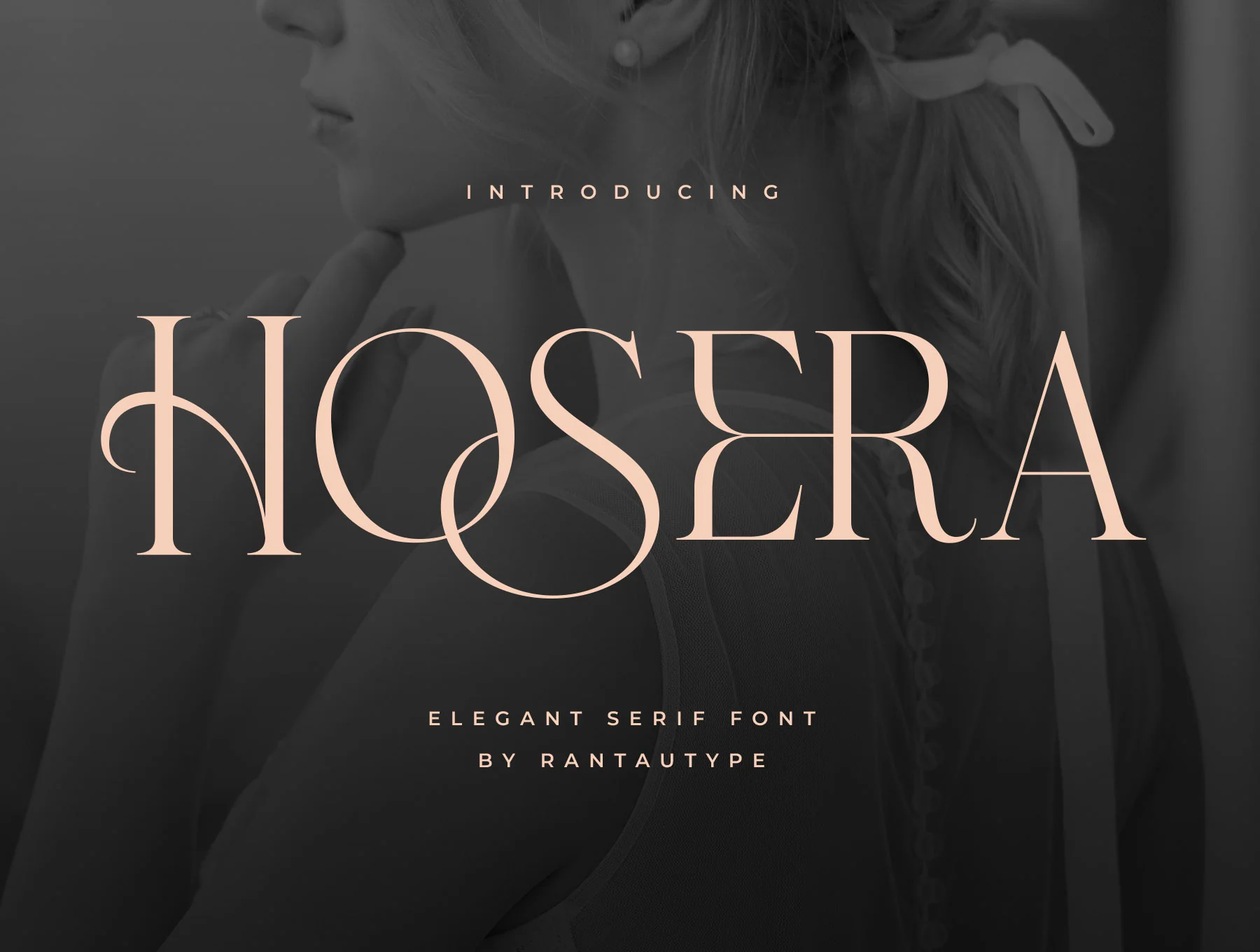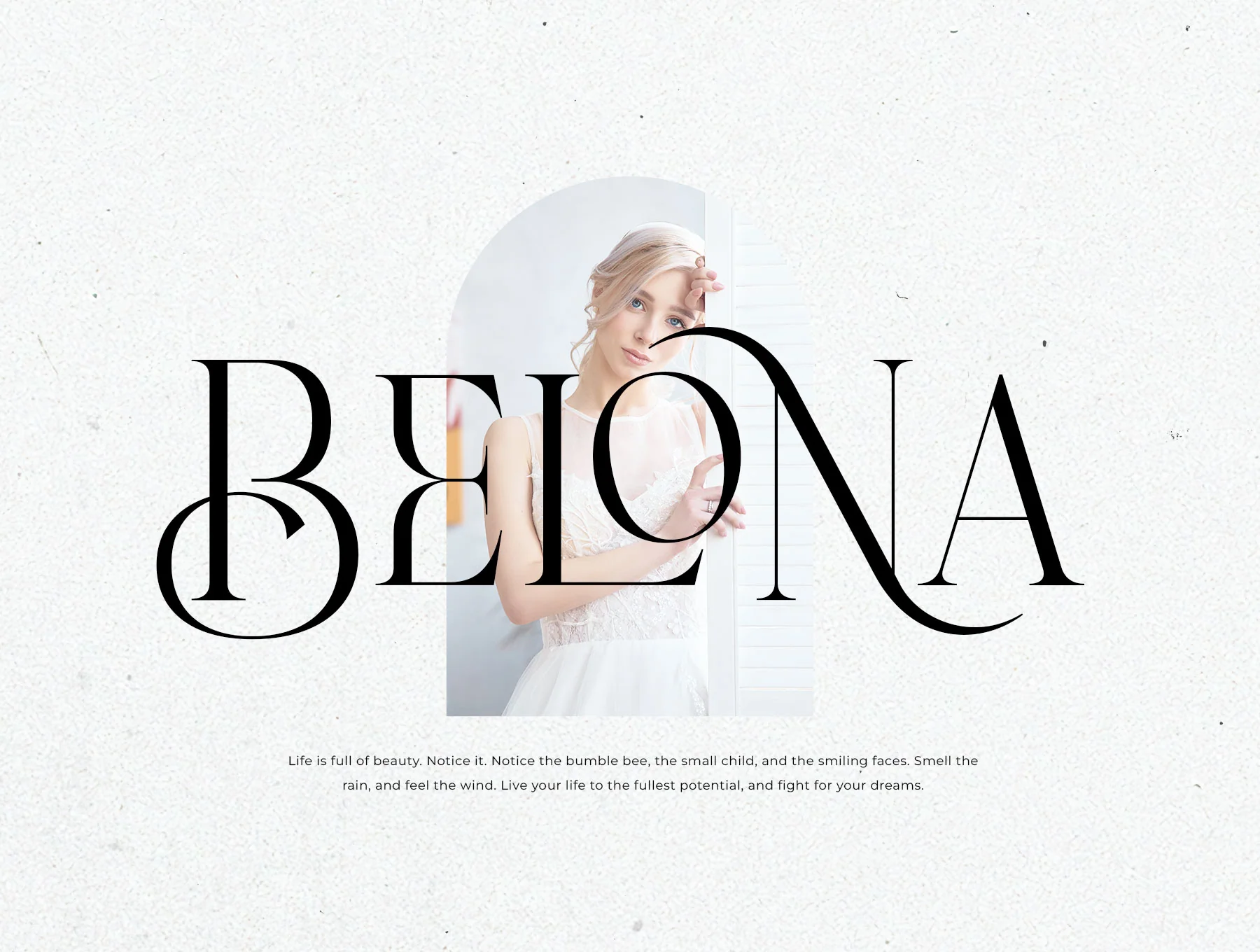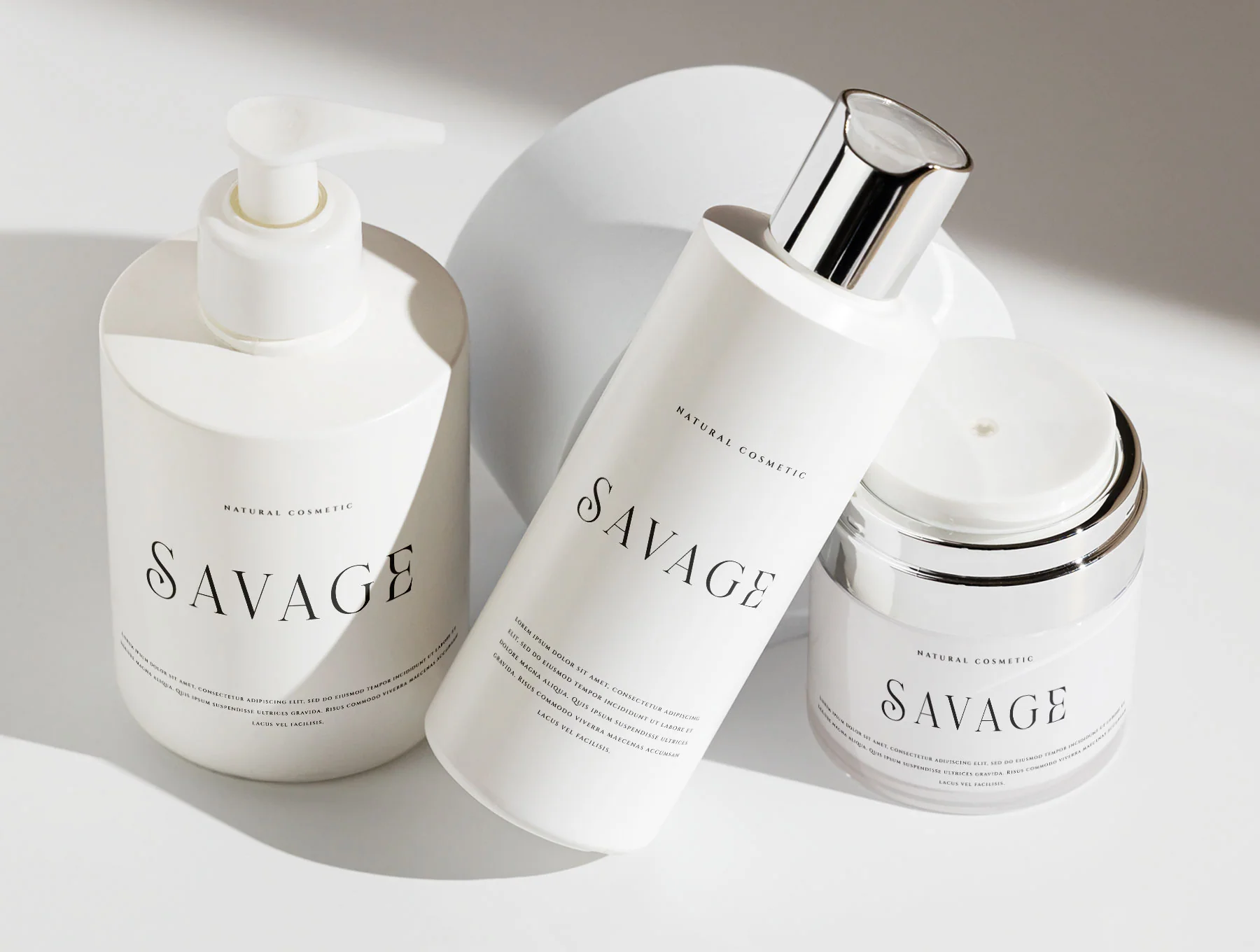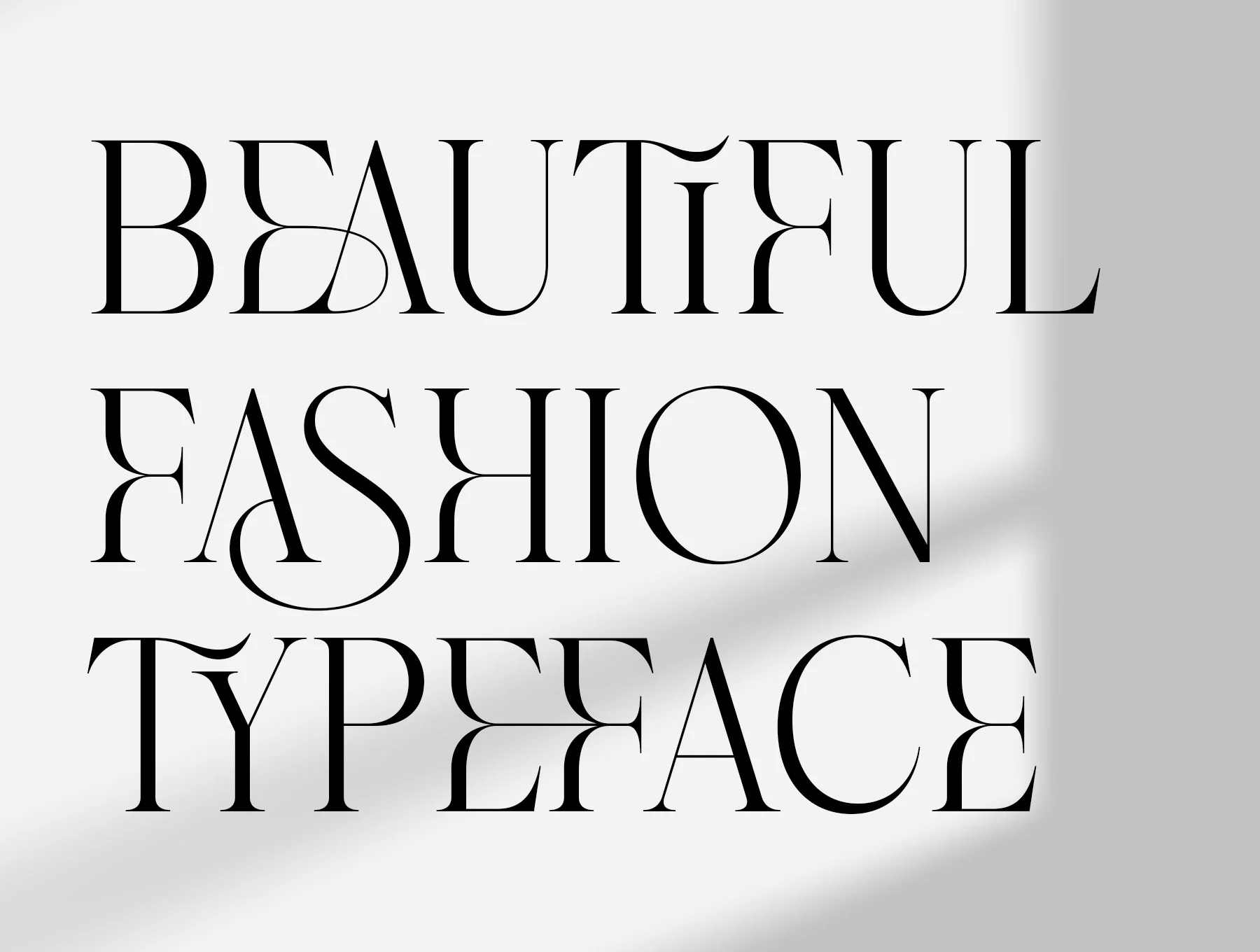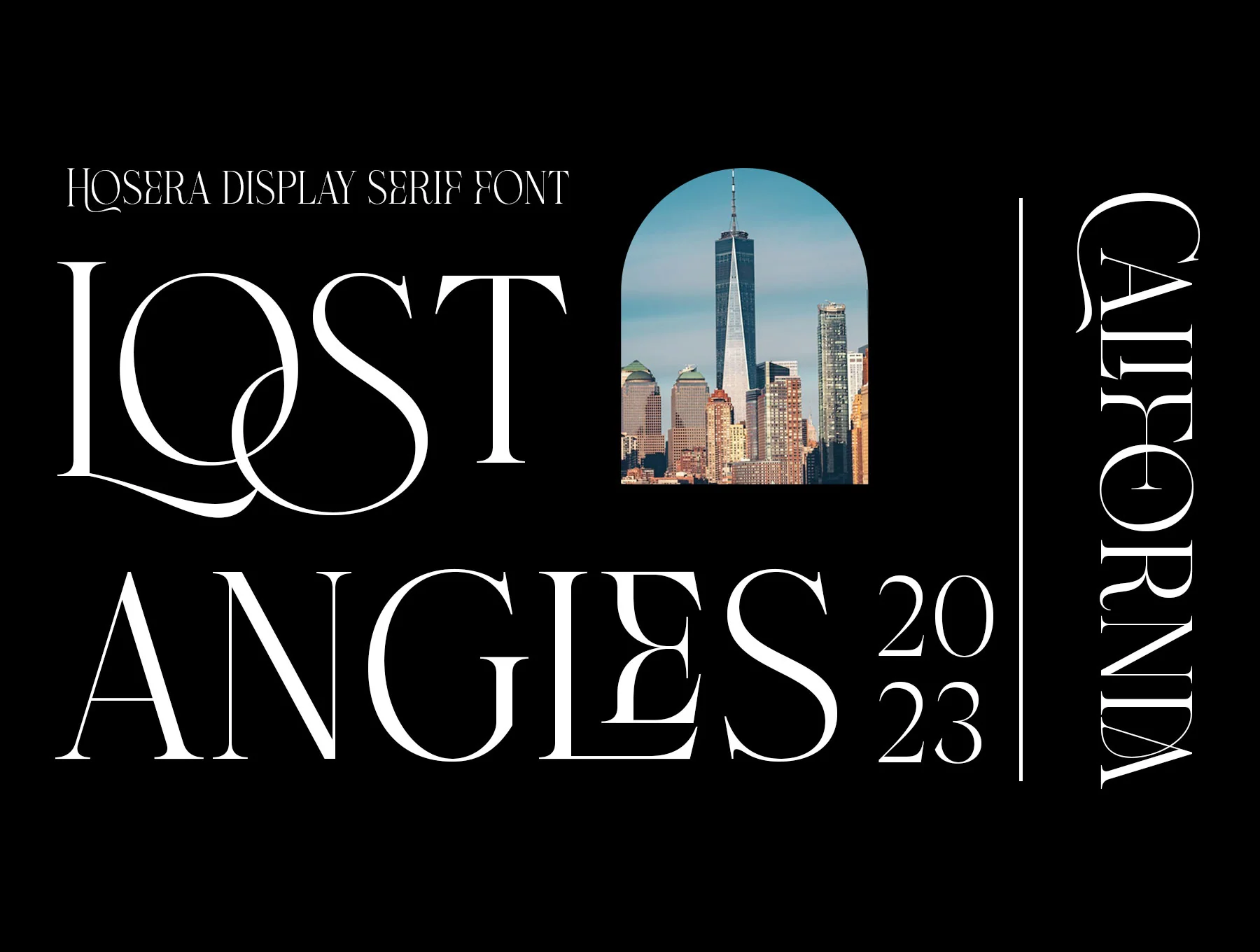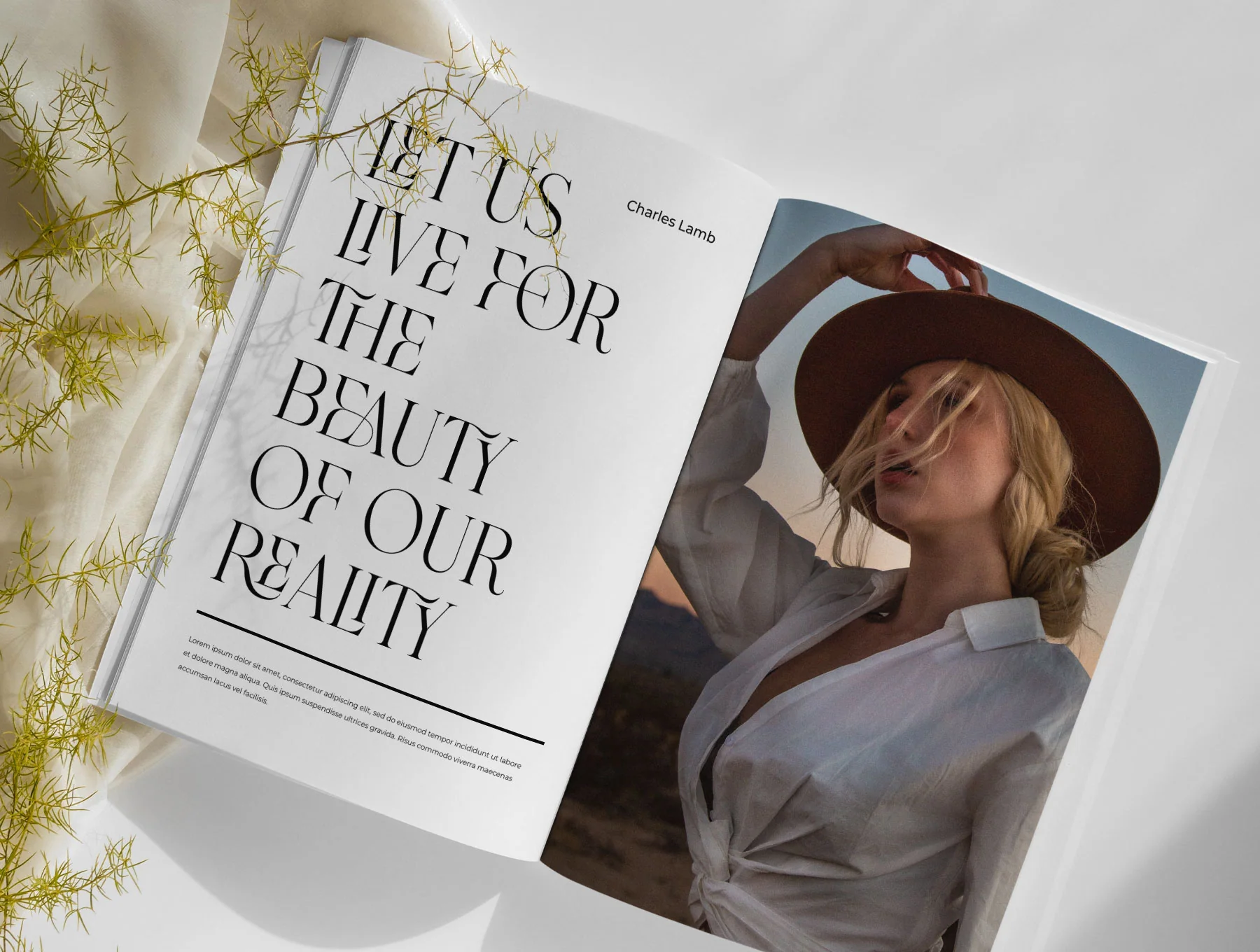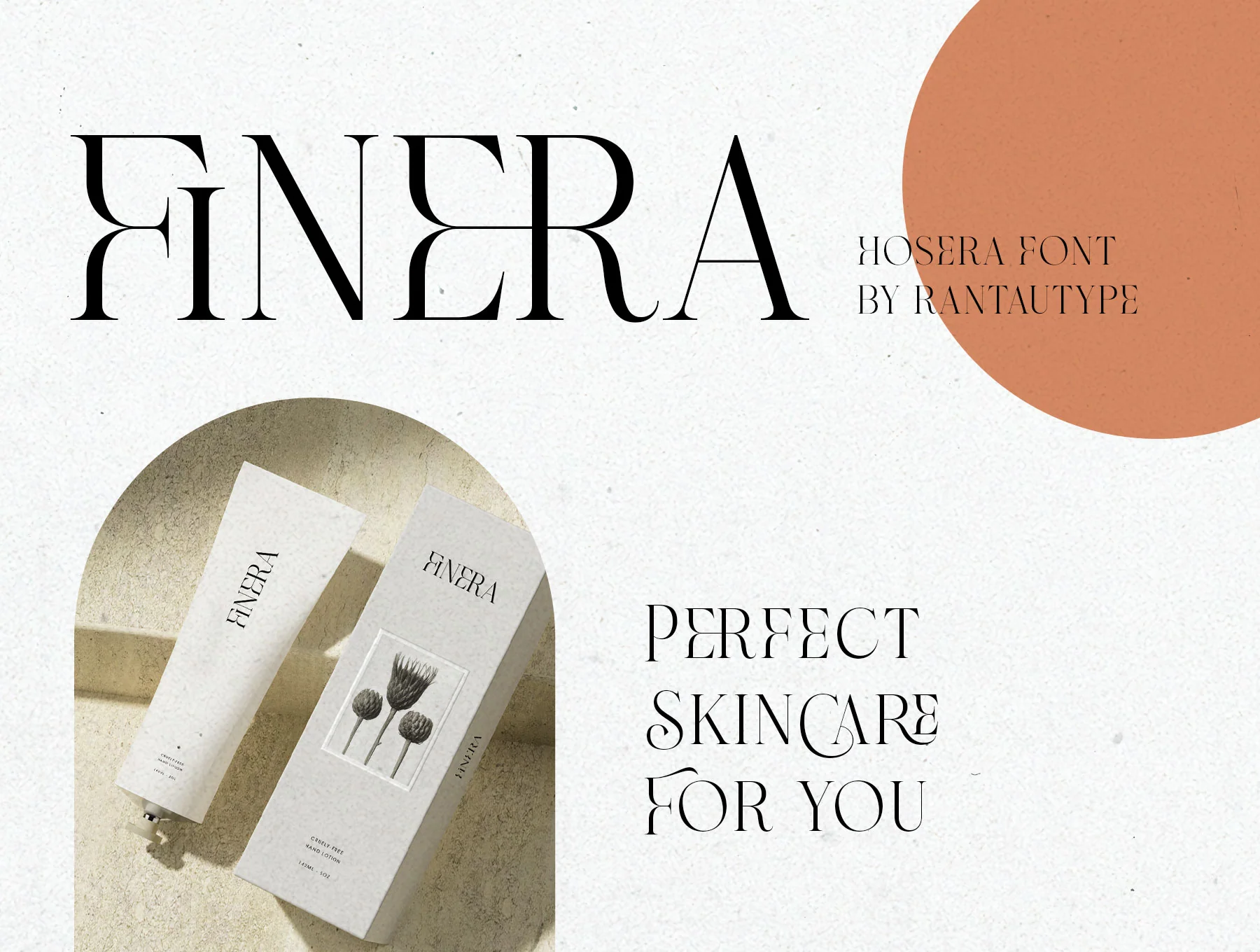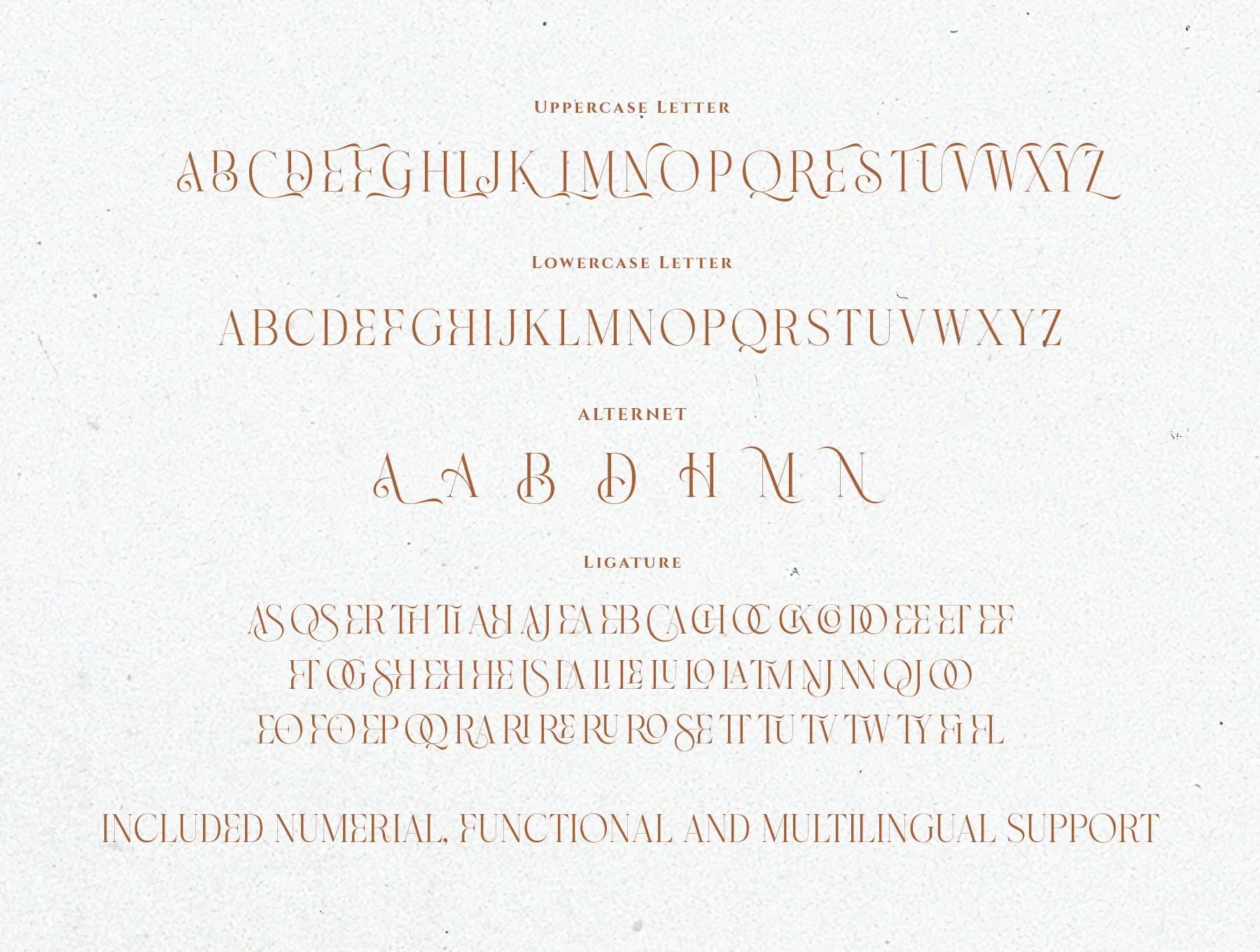
Hosera A Elegant Serif Font
Refined Serif Typeface
Standard letters A-Z and a-z
Numerals and functional characters
Alternates and ligatures
Hosera by rantautype is a refined ligature serif display font with tall, stylish forms for elegant, modern, premium designs. Ideal for logos, titles, covers, branding, magazines, and lifestyle projects. Includes uppercase/lowercase, numbers, punctuation, alternates, ligatures, multilingual support, plus regular and italic files in OTF, TTF, and WOFF.